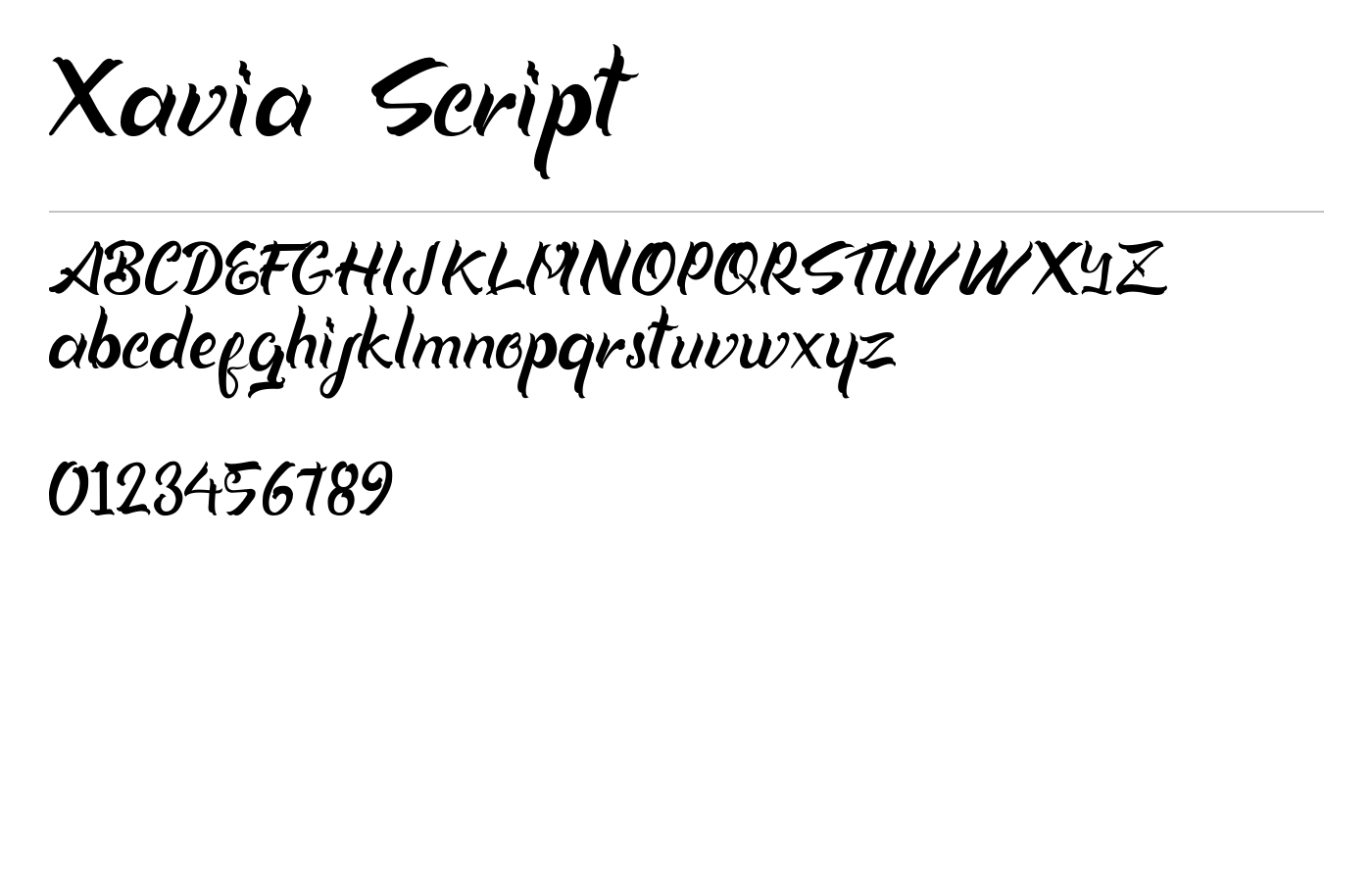
Xavia Script is a lively and artistic handwritten script font featuring bold, dynamic strokes with a slightly rough texture that adds personality and warmth. Its flowing, italicized letterforms with unique flourishes make it ideal for creative branding, invitations, and headlines where an expressive, personal touch is desired. This font works best in designs that seek to combine elegance with a casual, handcrafted feel.
Xavia Font
About Xavia Font